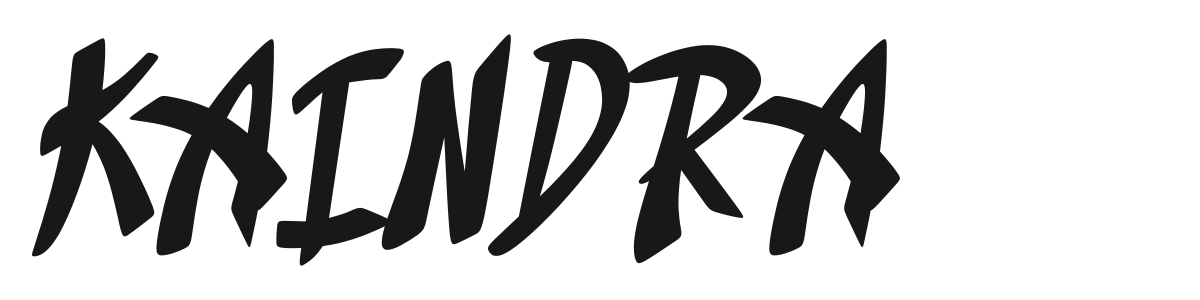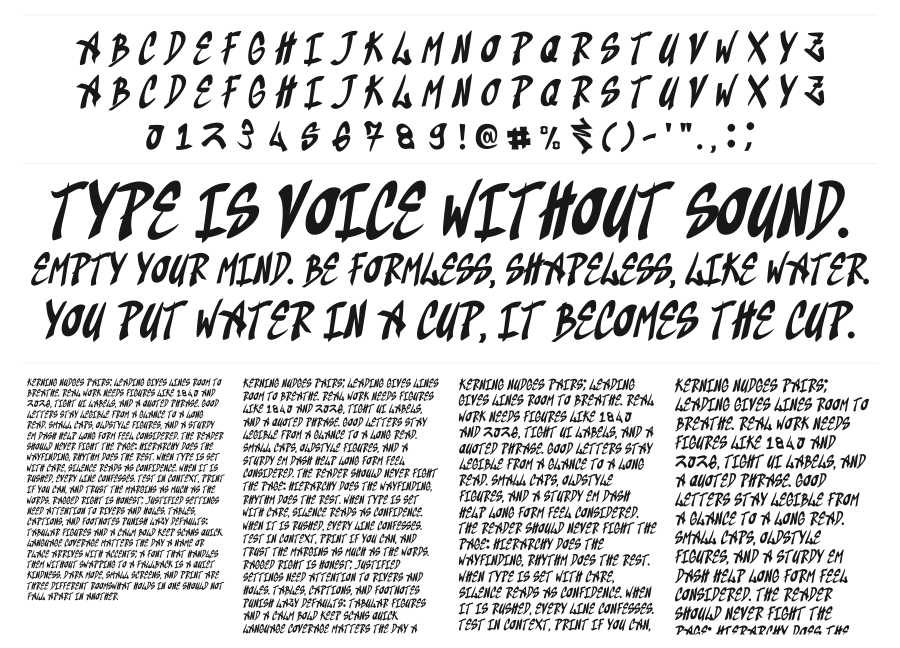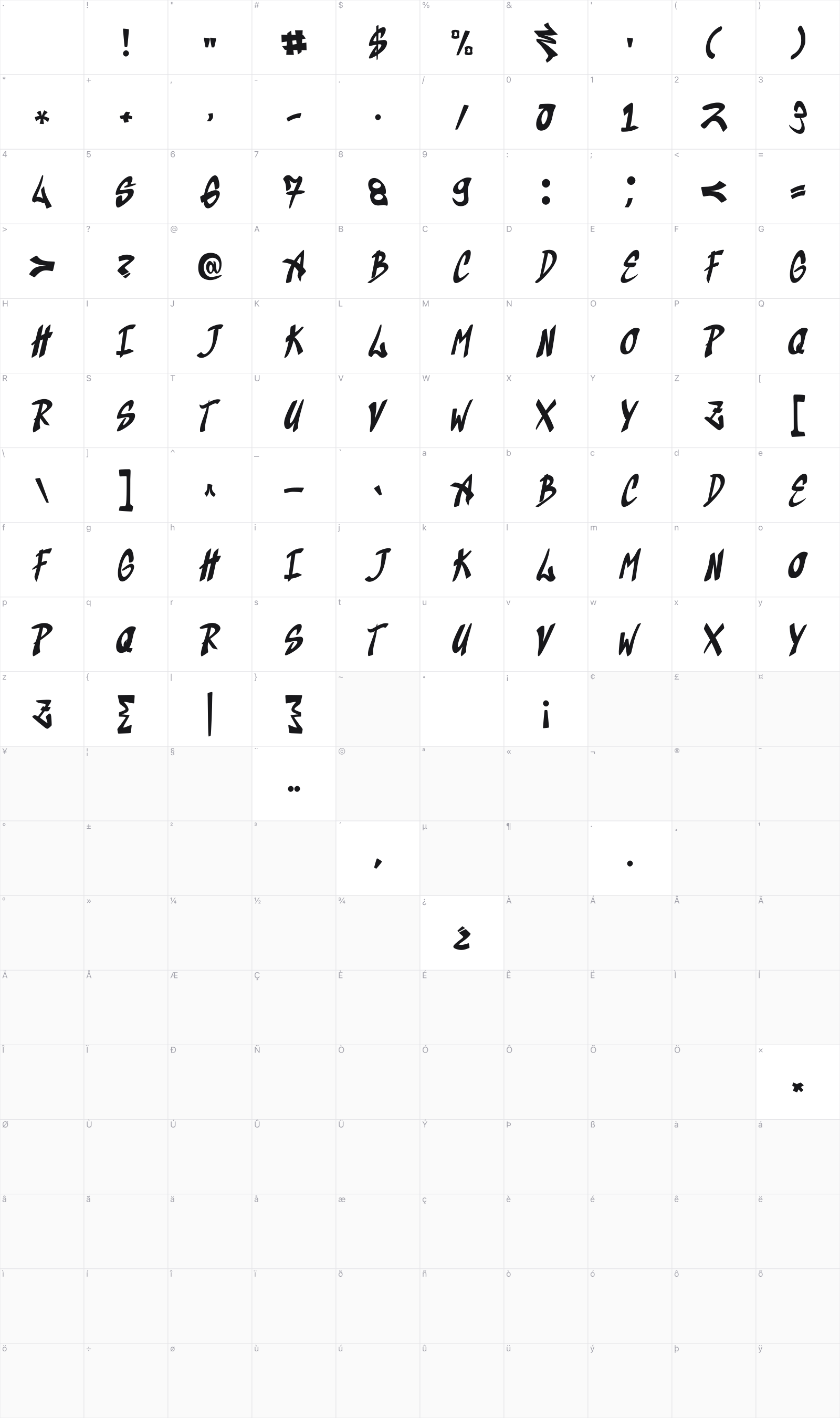
Kaindra
Kaindra is a bold brush script with an aggressive oblique stance and raw, ink-textured strokes that feel pulled straight off a painted wall. The heavy condensed letters carry strong thick-to-thin contrast and jagged terminals that amplify the kinetic, street-art energy. It hits hard at large sizes in posters, album covers, and apparel graphics.